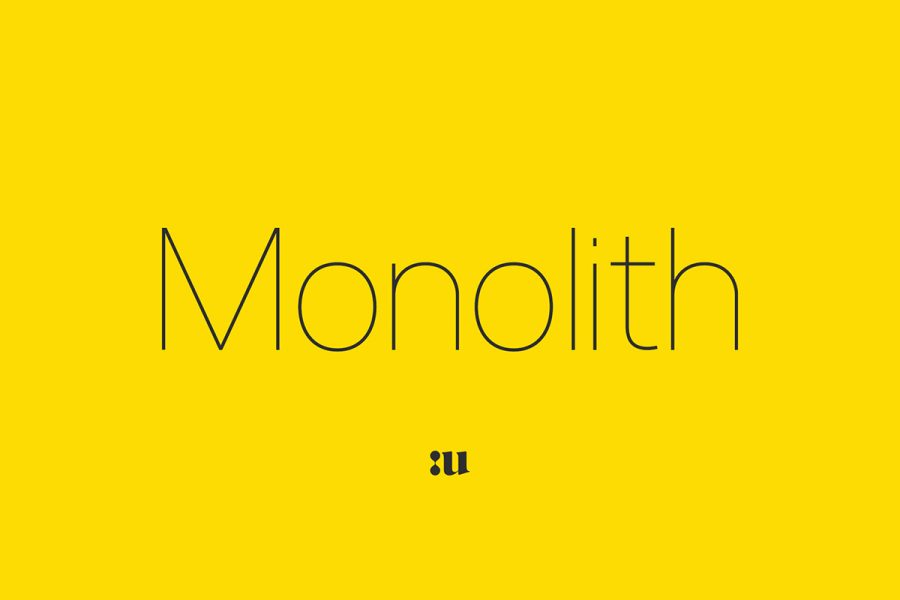
Free Monolith Sans Serif Font
Free Monolith Sans Serif Font is a family sans-serif font. It is suitable for printing, packaging, articles, titles, editorials, publishing, logos, branding, small and more. Free Monolith Sans Serif Font is a commercial license, you can use it for your commercial projects and of course for your profit projects.